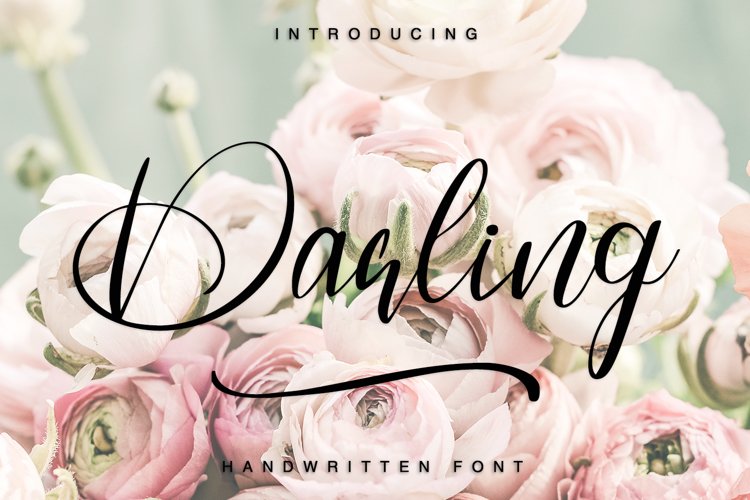
Darling - Unique stylish handwritten font.
Sets the mood, inspires emotions,
helps the perception of the image before reading the text.
Perfect for your product presentation.
Swashes, Ligatures ( aa, ab, ad, add, all, ar, at, att, bb, cc, dd, ee, ff, if, in, ir, is, it, ll, mm, my, nn, ob, off, om,
on, oo, oy, rr, ss, tt, um, un, ur, ut,utt )